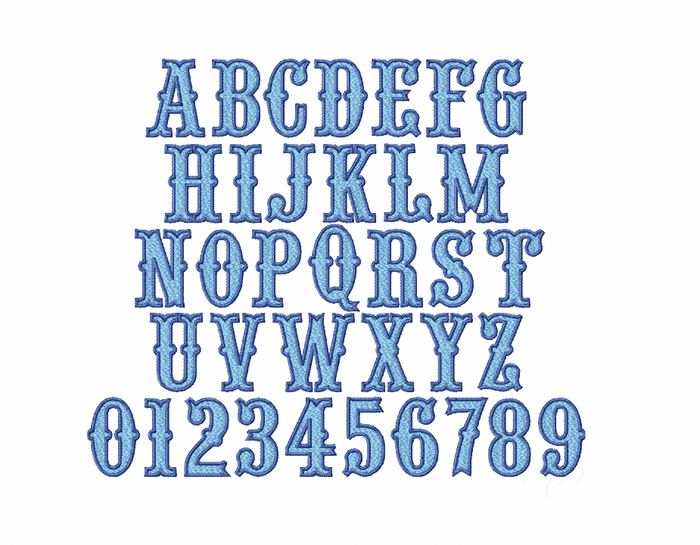
4x4 Western Fill Satin Embroidery Font for Monogramming
Transform your embroidery projects with our 4x4 Western Fill Satin Embroidery Font. This two-color font features a beautiful embroidery fill paired with a contrasting outline, making it ideal for monogramming on various fabric types.